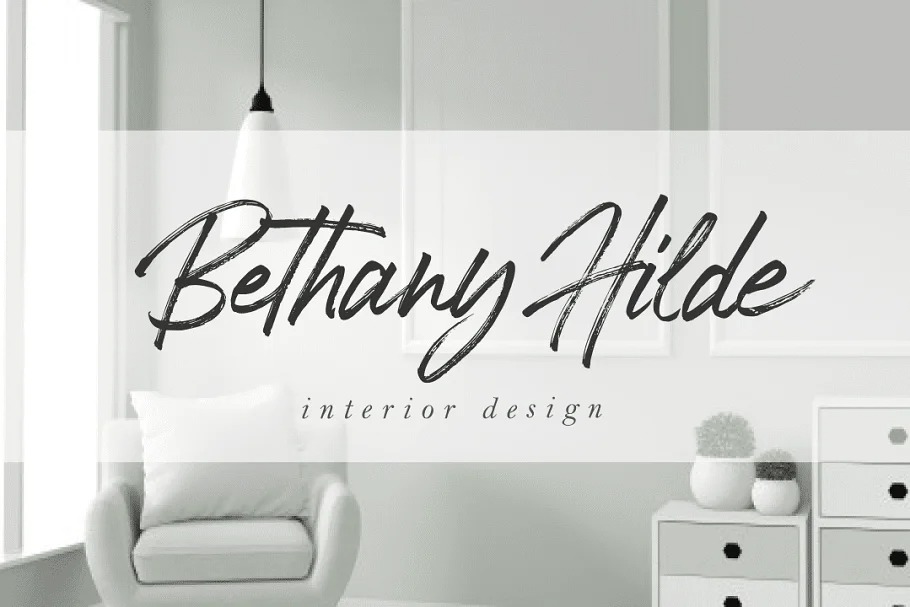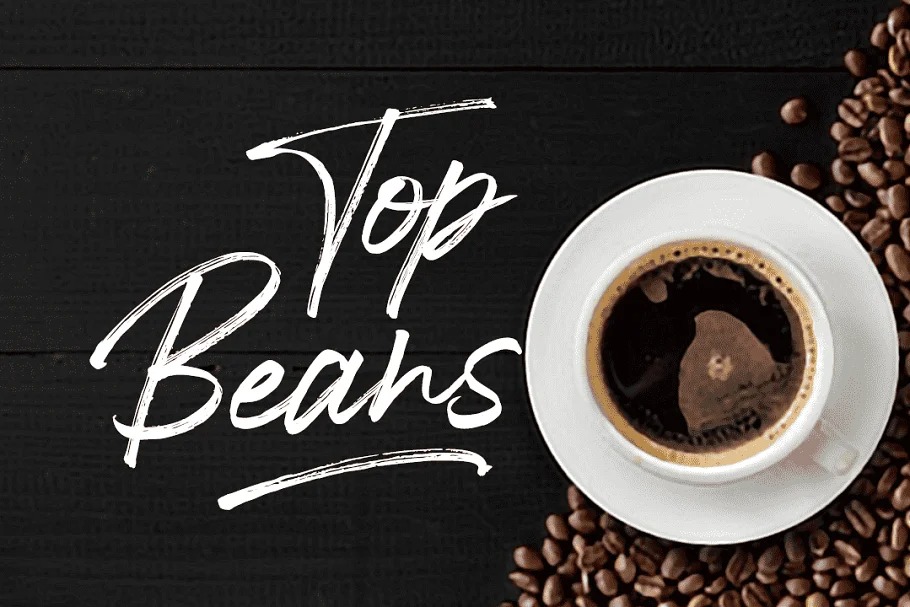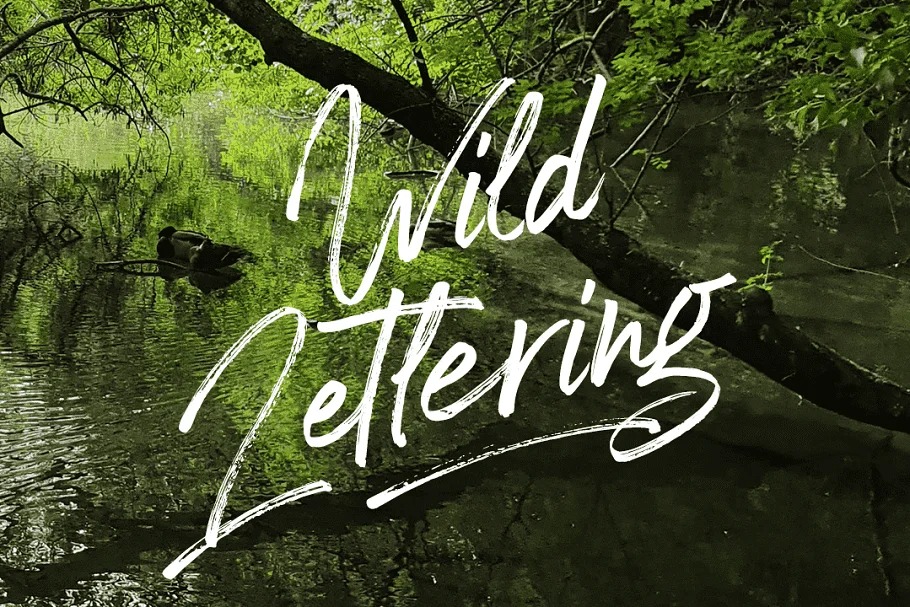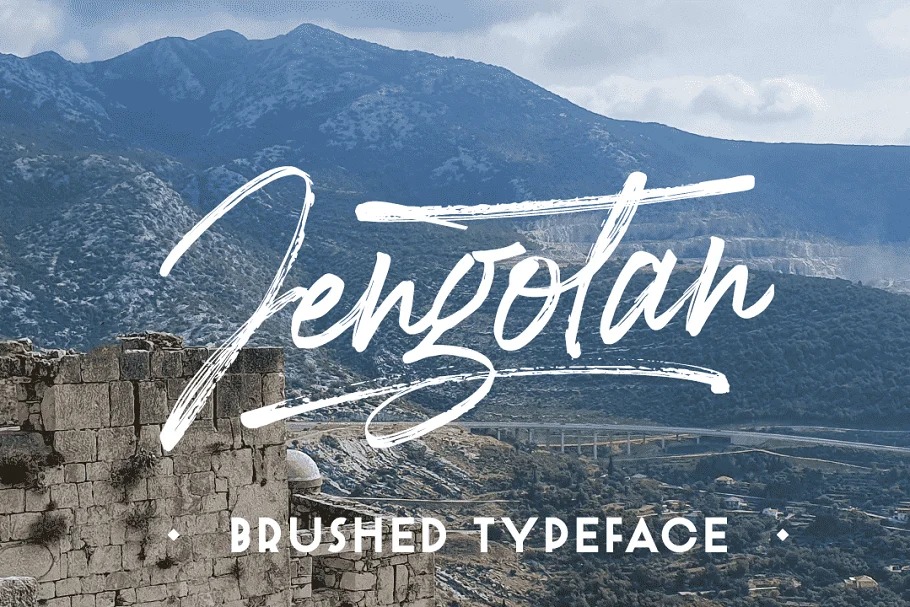
Jengotan Brush Font
It’s a distressed brush typeface created in 2021 by Mans Greback. It is drawn, scanned and vectorized from paper to screen, with the intent of being an authentic brush typeface, leaving the texture and imperfections the way they are, resulting in a vivid style for projects that requires dynamic handwriting.